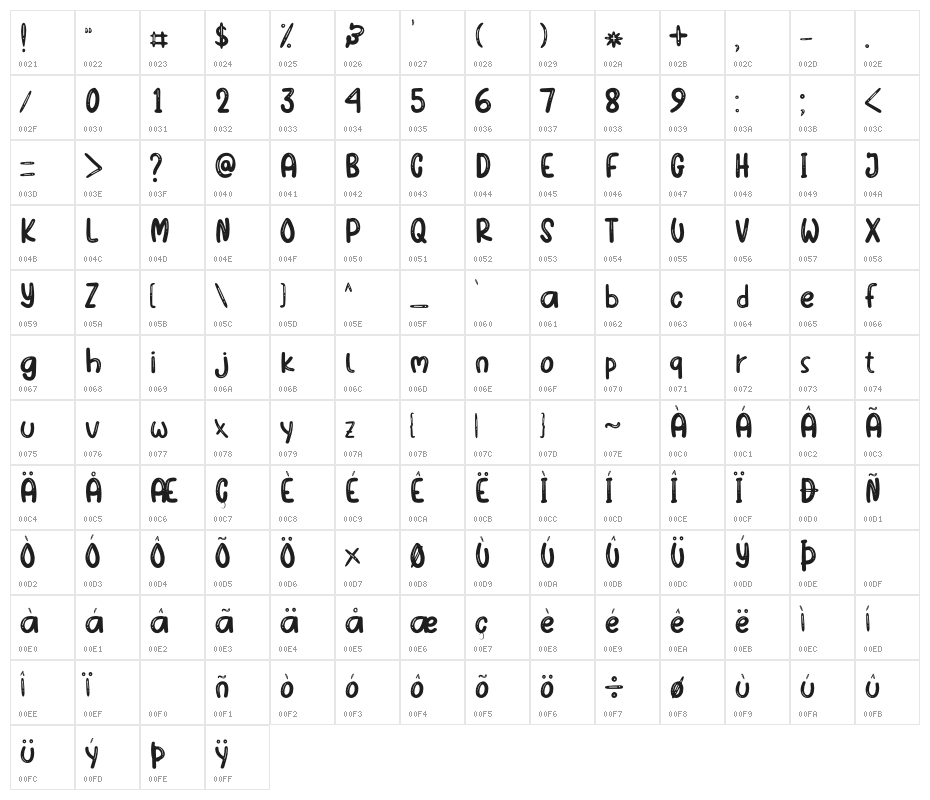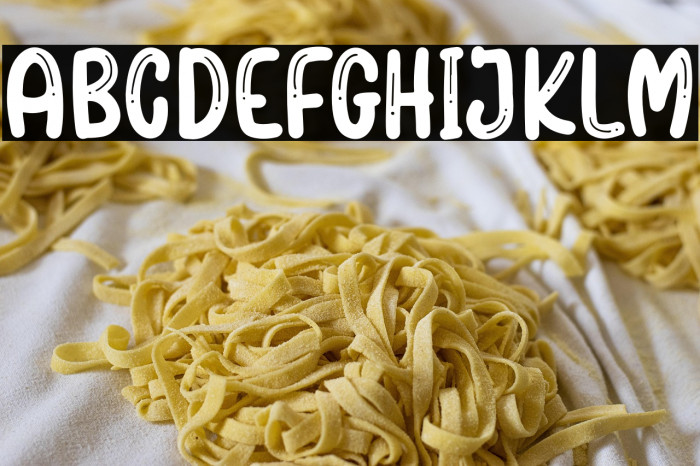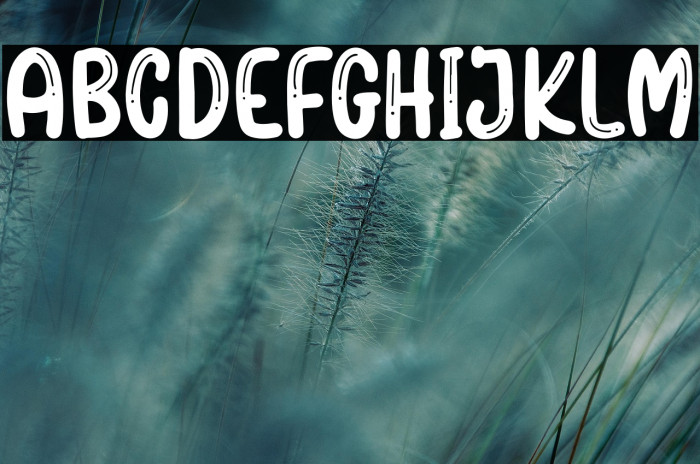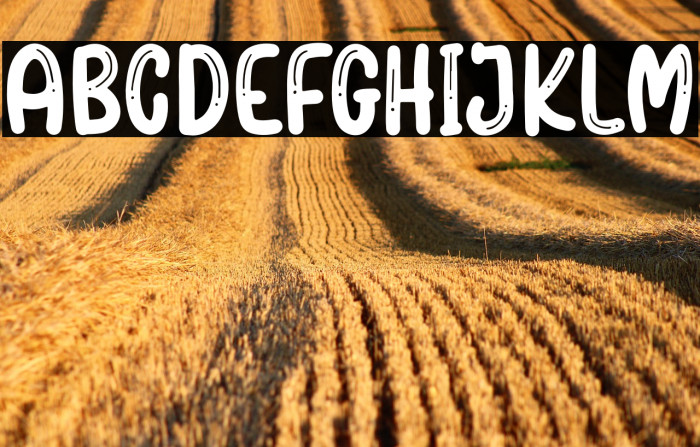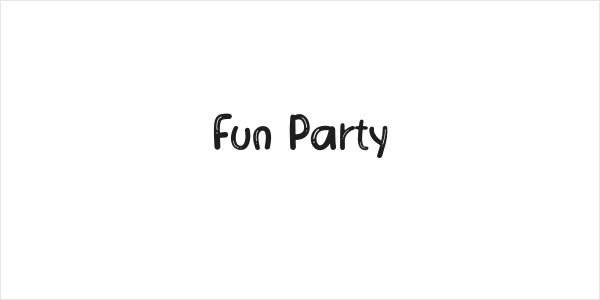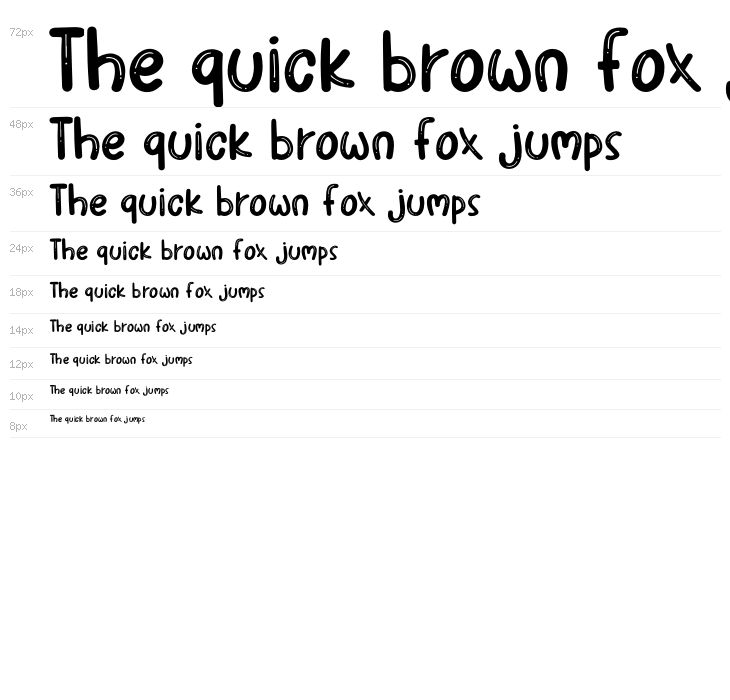
Fun Party Font
Fun Party Description
This playful and energetic font features bold, rounded characters with a hand-drawn appearance. Each letter has a unique, slightly irregular shape, adding to its whimsical and fun aesthetic. The strokes are thick and consistent, giving the font a strong presence. The uppercase and lowercase letters maintain a cohesive style, while the numbers and special characters complement the overall design. This font is perfect for projects that require a lively and informal touch, such as party invitations, children's books, or playful branding.
| Proposed Projects | Ideal for party invitations, children's books, playful branding, and casual posters. |